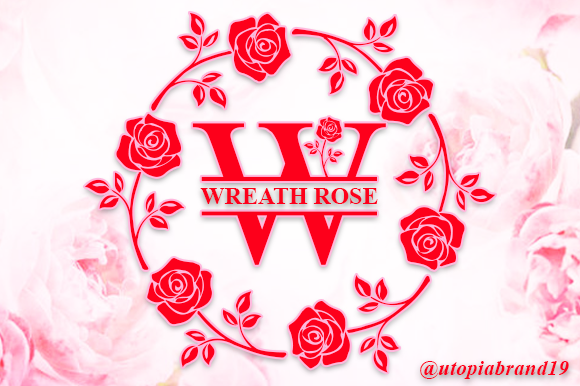
Step into a world of charm and elegance with Wreath Rose Monogram, the captivating decorative font that will transform your designs into works of art. Experience the allure of its authentic feel as you craft enchanting invitations, exquisite stationary art, captivating social media posts, and adorable greeting cards.
Journey through the realm of romance with Wreath Rose Monogram, where delicate roses entwine with ornate wreaths, creating a symphony of visual delight. Its timeless beauty evokes a sense of nostalgia, reminding you of vintage love letters and cherished memories. Let your creativity flourish as you effortlessly add a touch of sophistication to your projects, making them truly unforgettable.
Whether you're a seasoned designer or just starting your creative adventure, Wreath Rose Monogram is the perfect companion for your artistic expressions. Its versatility allows you to explore endless possibilities, from whimsical wedding invitations to elegant branding projects. Unleash your imagination and embark on a journey of creativity, leaving a lasting impression on your audience.
With Wreath Rose Monogram, you'll discover a font that speaks to your heart. Its intricate details and flowing curves exude a sense of grace and refinement, elevating your designs to new heights. Prepare to be mesmerized as your words dance across the page, adorned with an ethereal charm that captures attention and sparks emotions.
Dare to embrace the beauty of Wreath Rose Monogram and witness the transformation of your creative endeavors. Let your designs bloom with romance, elegance, and a touch of nostalgia. Embrace the art of timeless beauty and create masterpieces that will be cherished for years to come.